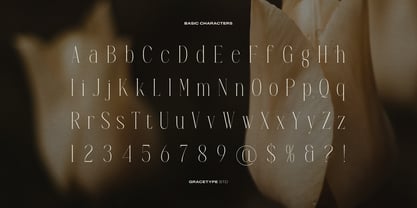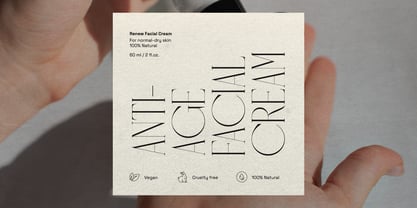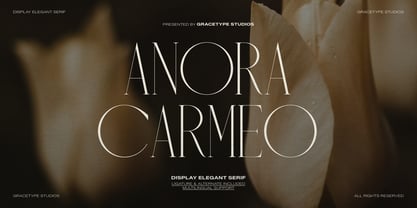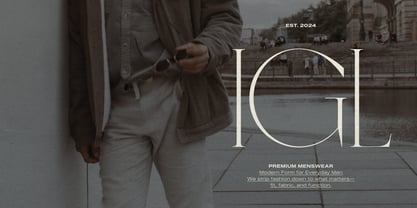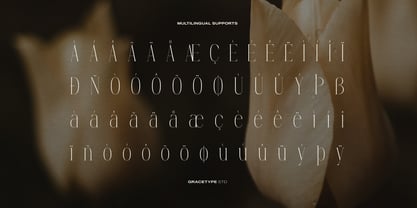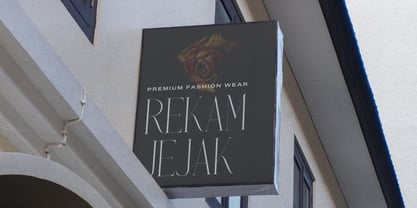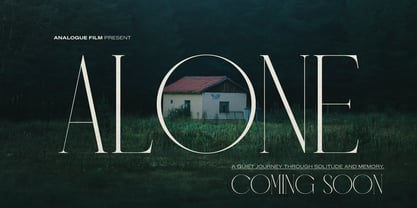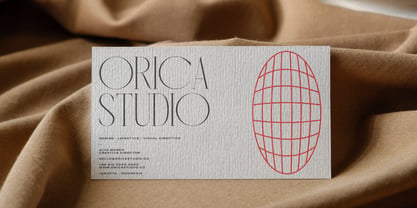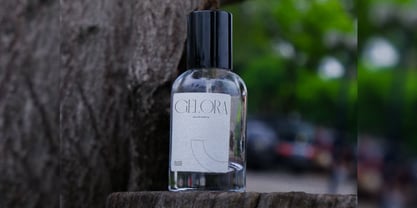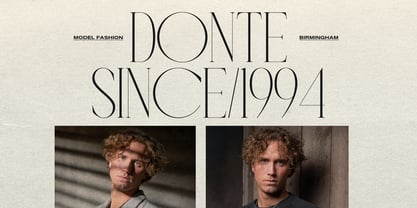
Anora Carmeo
by Tini Fitriani
The Anora Carmeo Font Family was designed by and published by Tini Fitriani. Anora Carmeo contains 2 styles and family package options. More about this family
Anora Carmeo | Display Elegant Serif, from Gracetypestudio, suitable for any projects such as: logos, branding projects, homeware designs, product packaging, mugs, quotes, posters, shopping bags, t-shirts, book covers, name card, invitation cards, greeting cards, label, photography, watermark, special events, and all your other lovely projects that need a Serif taste.